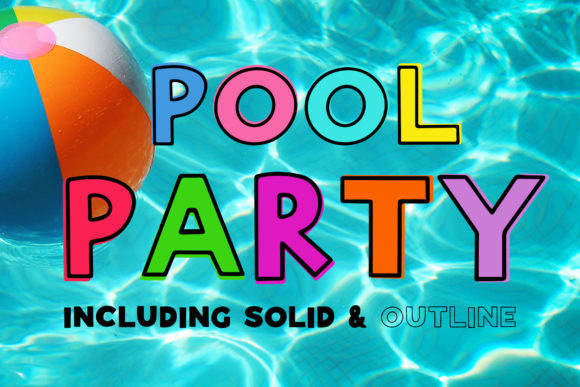
Journey into a world of playful typography with Pool Party Font, a captivating display font designed to ignite creativity and bring a touch of whimsy to your digital creations. Inspired by the carefree spirit of summer pool parties, this font exudes a sense of fun and adventure, making it the perfect choice for projects aimed at capturing the attention of young minds.
Pool Party Font's unique letterforms, reminiscent of colorful pool noodles floating on a sparkling blue surface, add a touch of lightheartedness and vibrancy to any design. Its playful curves and rounded edges evoke a sense of carefree fun, inviting viewers to dive into a world of imagination and creativity.
With its exceptional legibility, even at small sizes, Pool Party Font excels in situations where space is limited, making it the ideal choice for eye-catching headlines, playful logos, quirky social media posts, and captivating website designs. Whether you're creating invitations for a pool party or designing marketing materials for a children's product, Pool Party Font is sure to make a splash.
With its versatility and charm, Pool Party Font is the perfect choice for designers looking to add a touch of whimsy and cheer to their projects. Its playful nature makes it ideal for children's books, posters, greeting cards, and packaging designs. It's also a great choice for creating fun and engaging social media graphics, adding a touch of personality to your online presence.
But Pool Party Font's appeal extends beyond its visual charm. Its ability to evoke positive emotions and create a sense of nostalgia makes it a powerful tool for connecting with audiences on a deeper level. This font has the uncanny ability to transport viewers back to their childhood, reminding them of carefree summer days spent splashing in the pool with friends. This emotional connection can create a lasting impression on audiences, making your designs more memorable and impactful.
So, dive into the refreshing waters of Pool Party Font and let your creativity flow. With its playful spirit, exceptional legibility, and ability to evoke positive emotions, this font is sure to make a splash in your designs and leave a lasting impression on your audience.